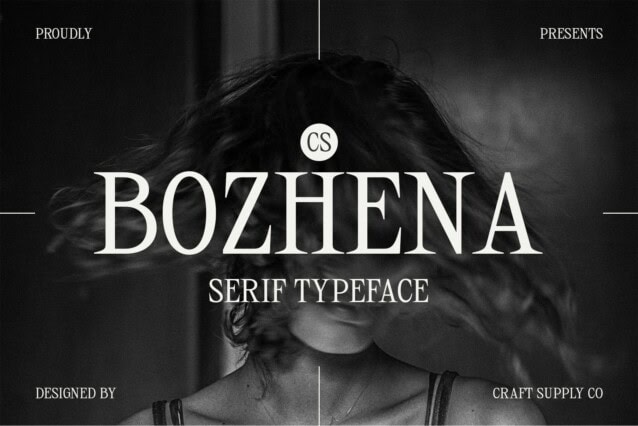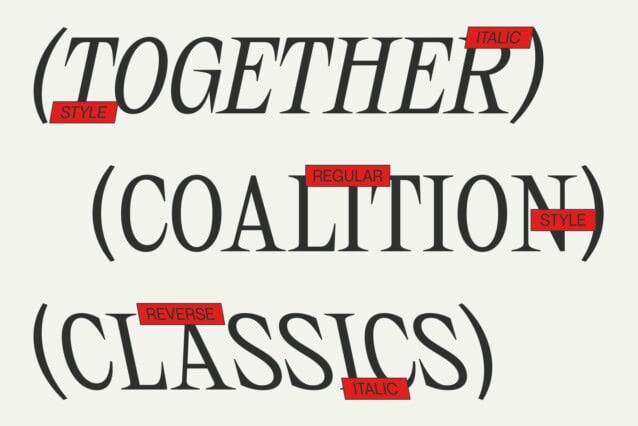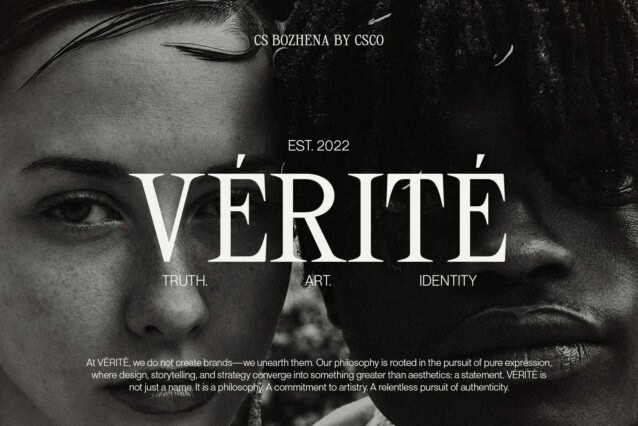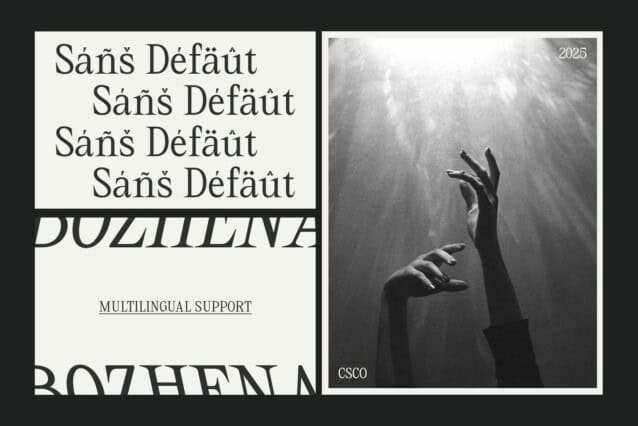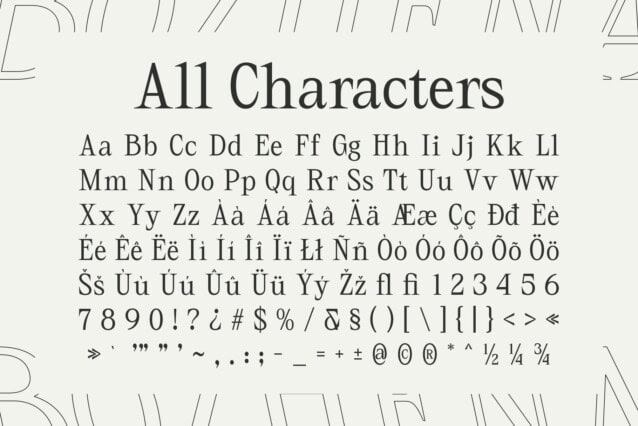
CS Bozhena Font
CS Bozhena Font is a modern classic serif font that masterfully combines contemporary design with timeless sophistication. With sharp serifs, balanced proportions, and refined letterforms, this typeface achieves a polished and authoritative aesthetic. Whether used in editorial layouts, corporate branding, or luxury publications, CS Bozhena ensures a strong and confident visual presence.